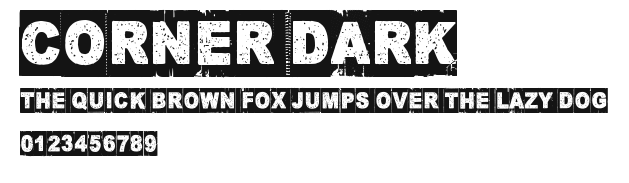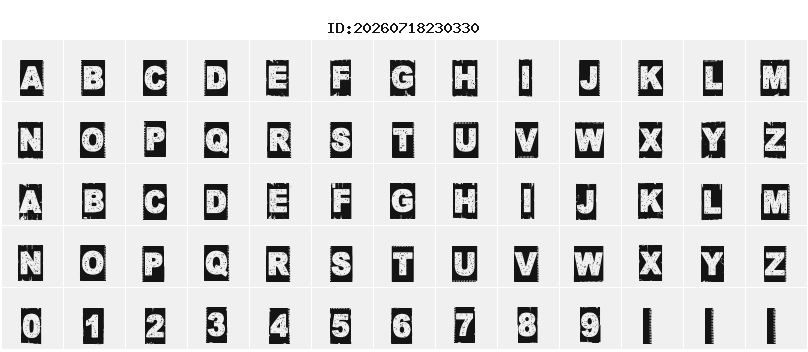
• Font Name: Corner Dark
• Designer: junkohanhero
Corner Dark.ttf is a modern, elegant sans-serif font designed for ultimate readability and visual harmony. Perfect for branding, headlines, web design, and print materials.